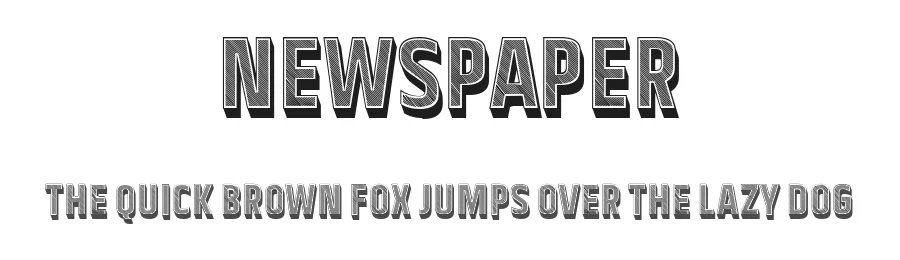
About Fresko Font
Fresko is a sans-serif font designed by Andrea Cerboneschi. It includes 236 glyphs, a regular weight, TTF (TrueType) format, and 209 languages. Fresko is free to download; check the license details on this page before commercial use. Sans-serif fonts like Fresko work best for clean body text, user interfaces, branding, and modern layouts.
| Designer | monocromo |
Fresko supports 209 languages.
Fresko Font is a versatile sans-serif font that works for both headings and body text. Pair it with a contrasting serif or slab serif font to add visual interest and a clear distinction between titles and body copy.